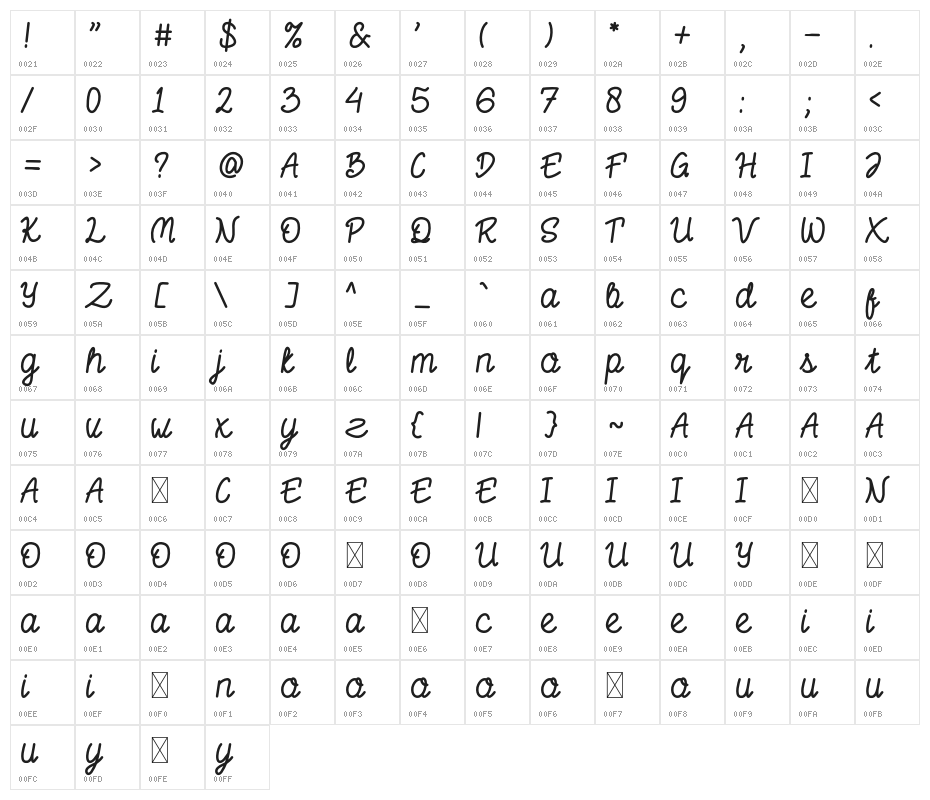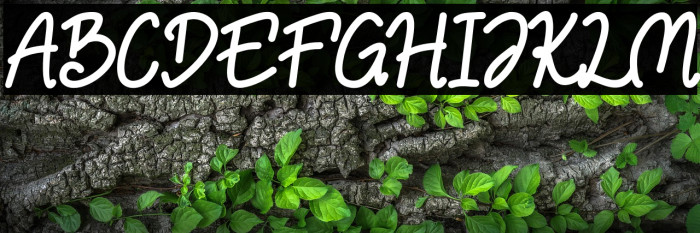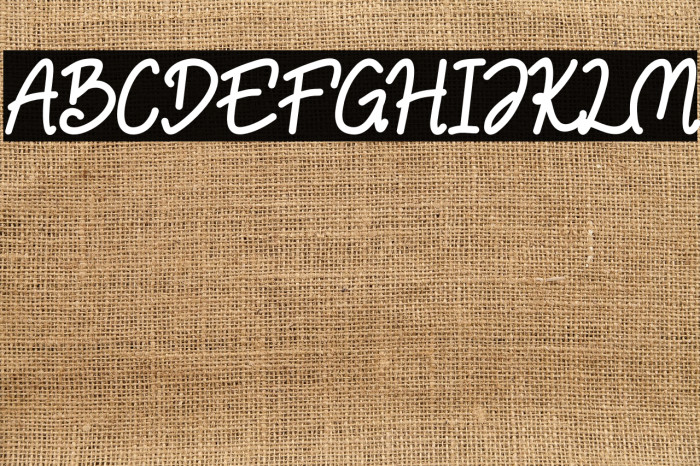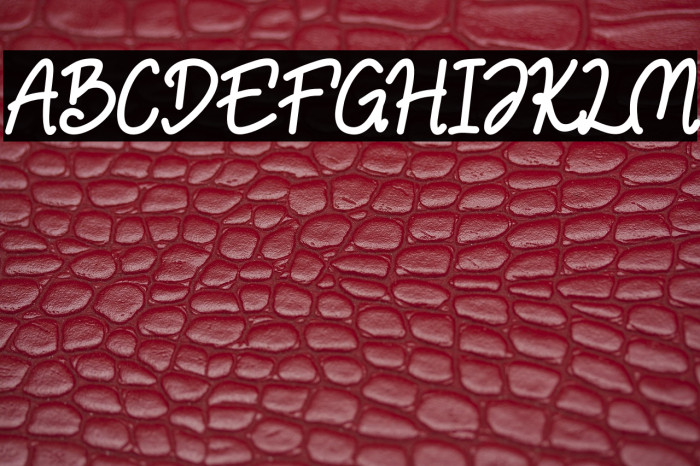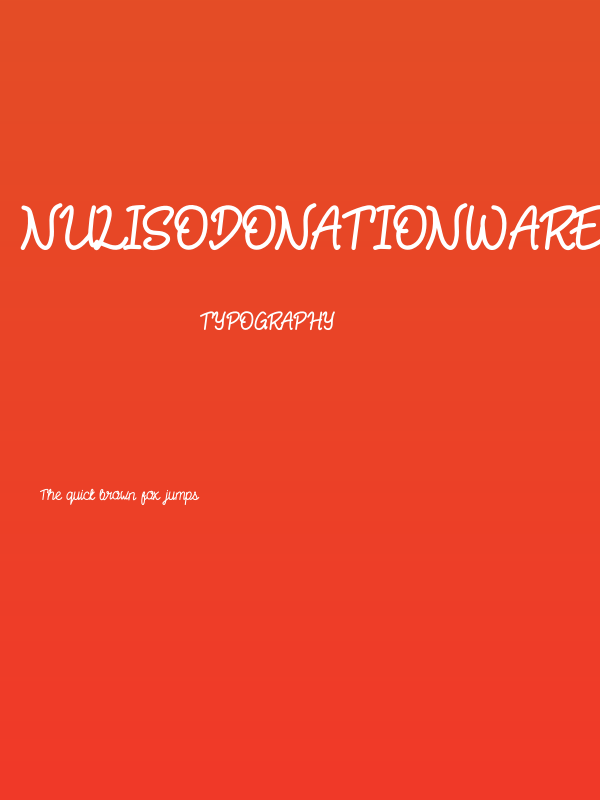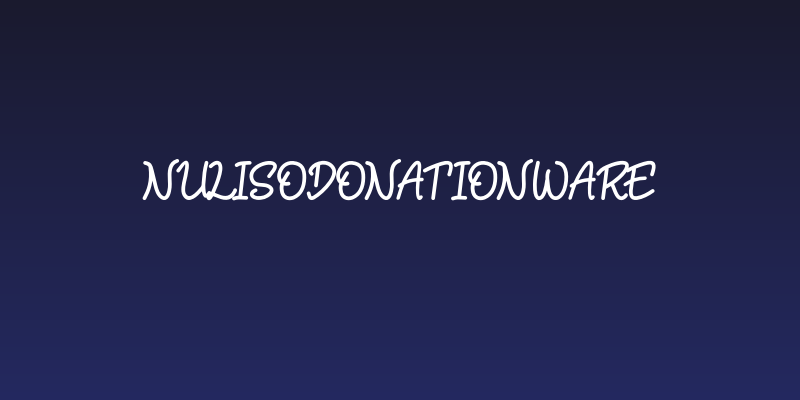
NulisoDonationware Font
NulisoDonationware Description
This font features a playful and flowing script style, characterized by its smooth, continuous strokes that mimic natural handwriting. The letters are connected, giving it a cohesive and fluid appearance. The uppercase letters are slightly larger and more pronounced, while the lowercase letters maintain a consistent height, enhancing readability. The numerals and special characters are designed to match the overall style, ensuring uniformity across all text. This font exudes a casual and friendly vibe, making it suitable for projects that require a personal touch.
| Proposed Projects | Ideal for greeting cards, invitations, personal branding, and social media graphics. |